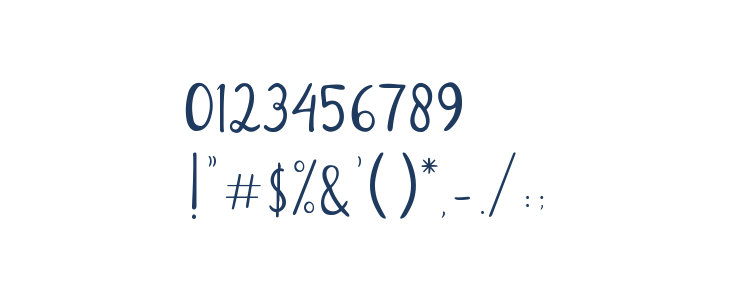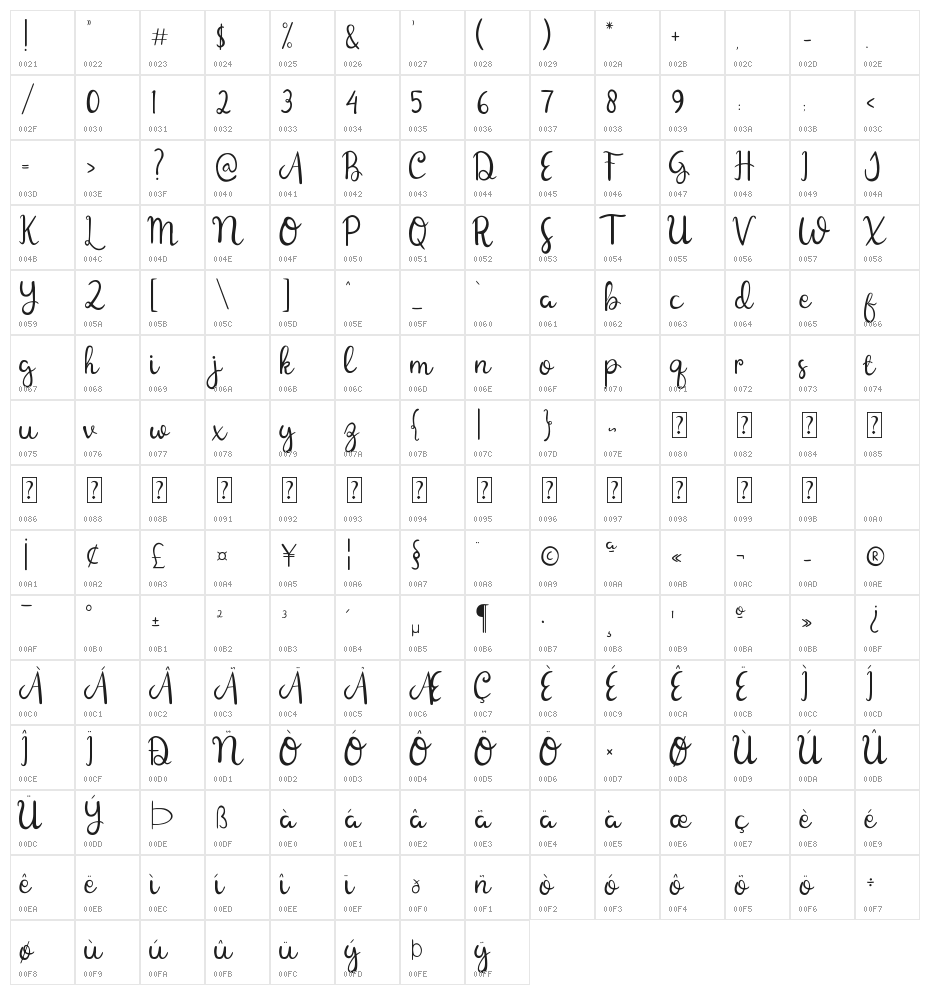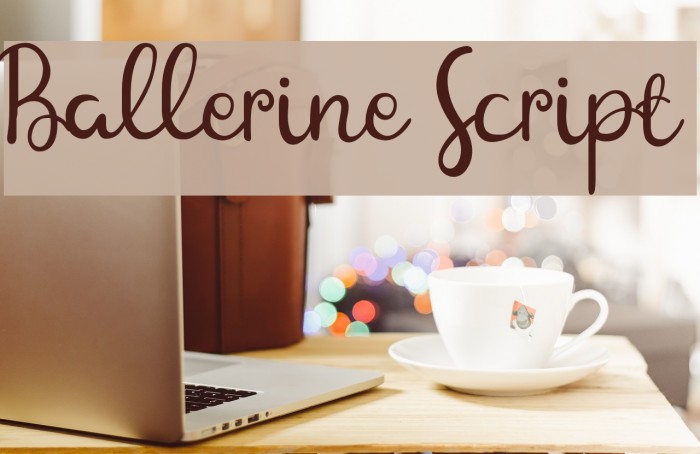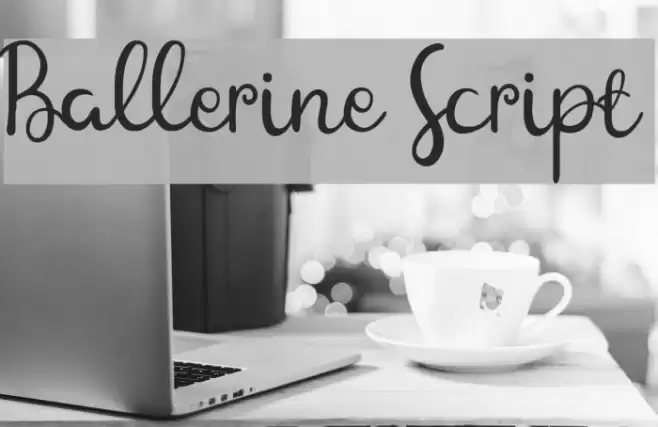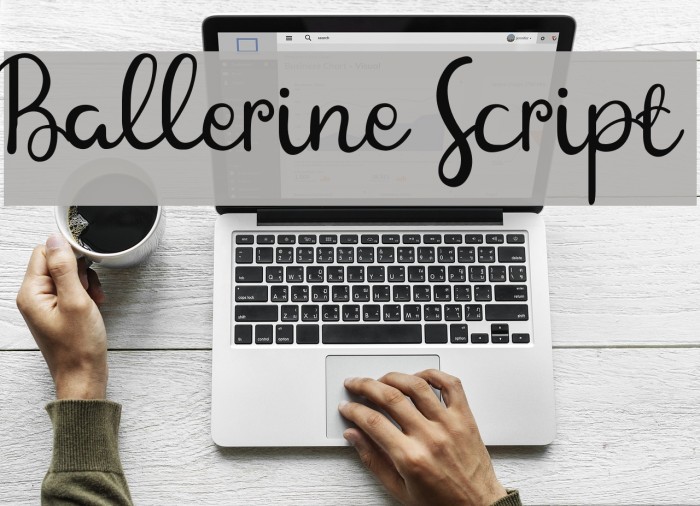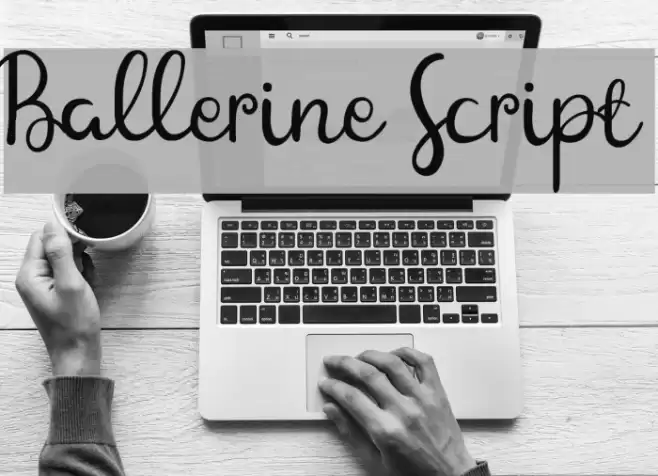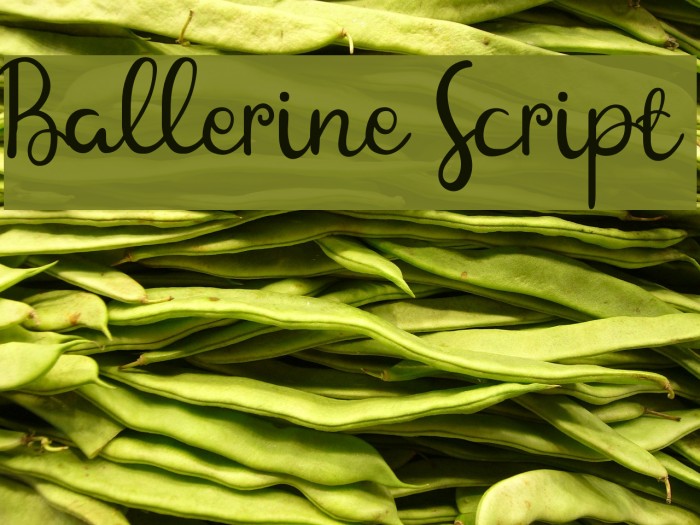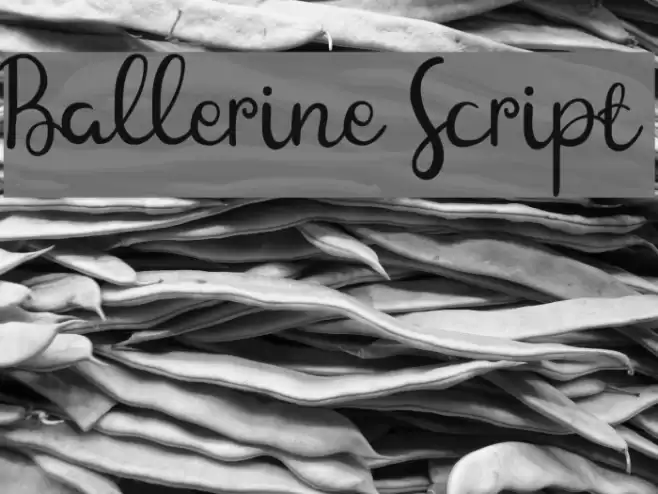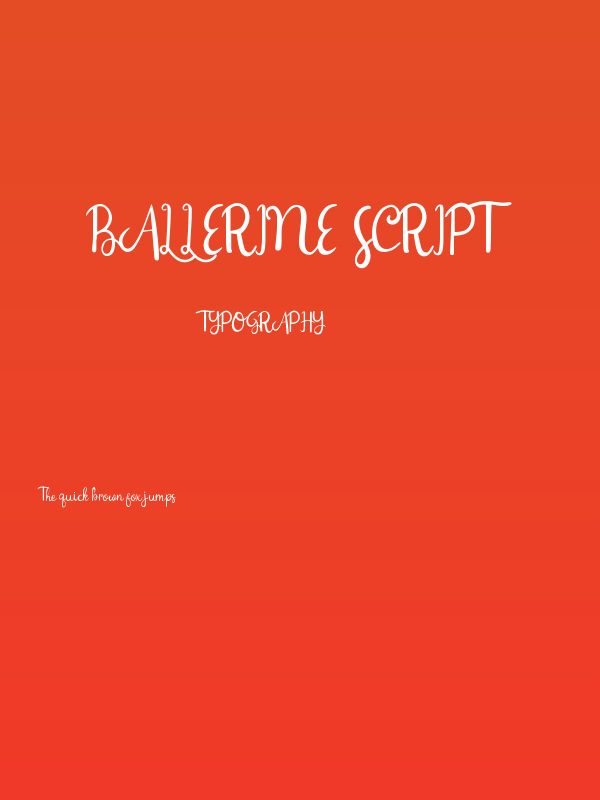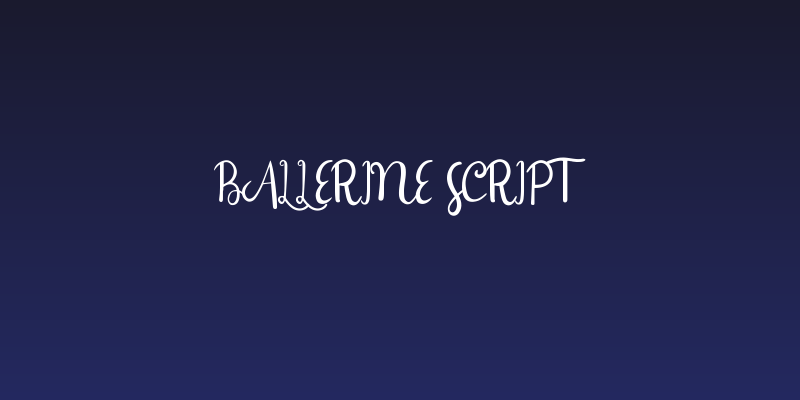
Ballerine Script Font
Ballerine Script Description
This elegant script font features a flowing, cursive style with smooth, rounded edges and a graceful, handwritten appearance. The uppercase letters are tall and slightly narrow, with distinctive loops and swirls that add a touch of sophistication. The lowercase letters maintain a consistent flow, connecting seamlessly to create a harmonious look. Numbers and special characters are designed with the same fluidity, ensuring a cohesive appearance across all text. The overall design is both stylish and legible, making it suitable for a variety of creative applications.
| Proposed Projects | Ideal for wedding invitations, greeting cards, branding, and elegant packaging. |